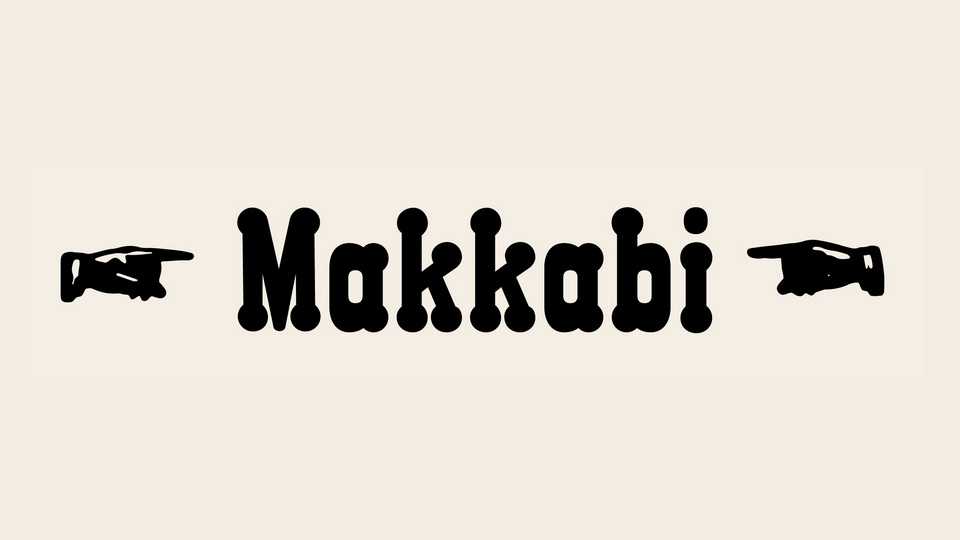
Download Makkabi font, an interwar type that was used in two Warsaw printing houses. Makkabi is a display typeface – it will work well with large, short inscriptions. It is best to combine it with sparing, sans serif typefaces.
Designer: Ania Wieluńska